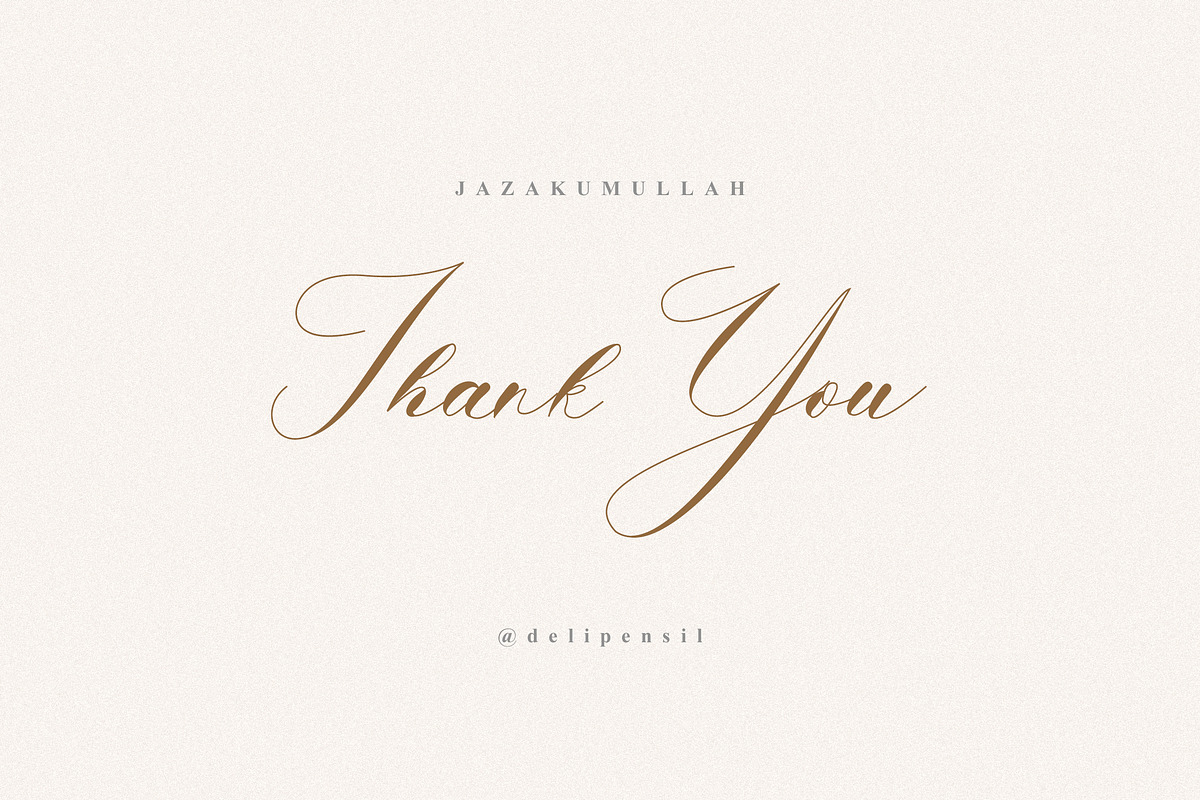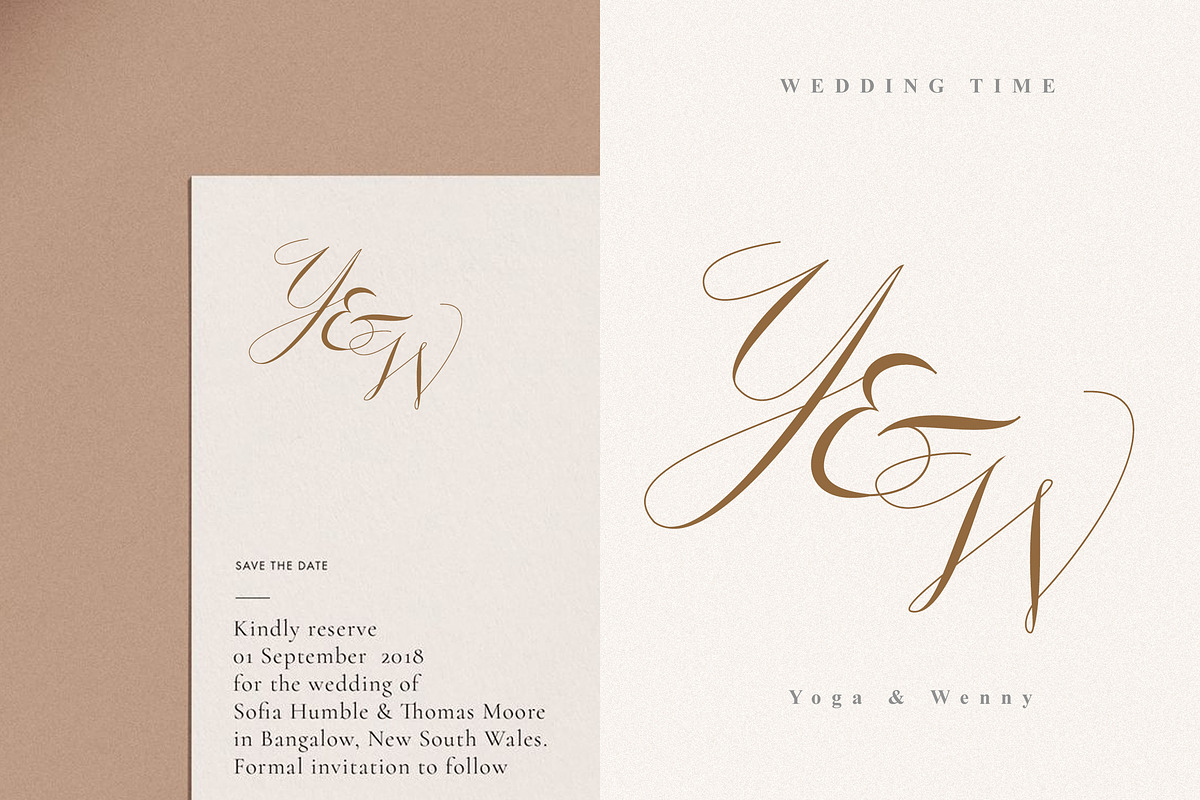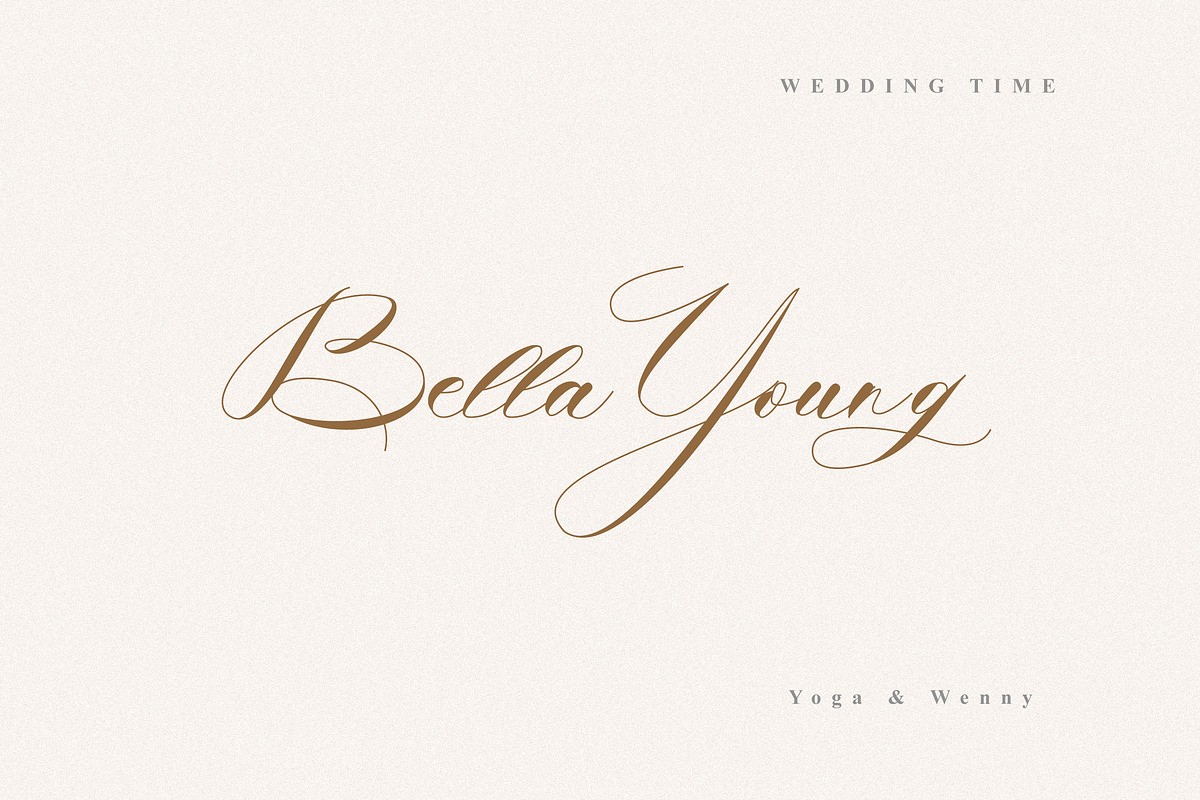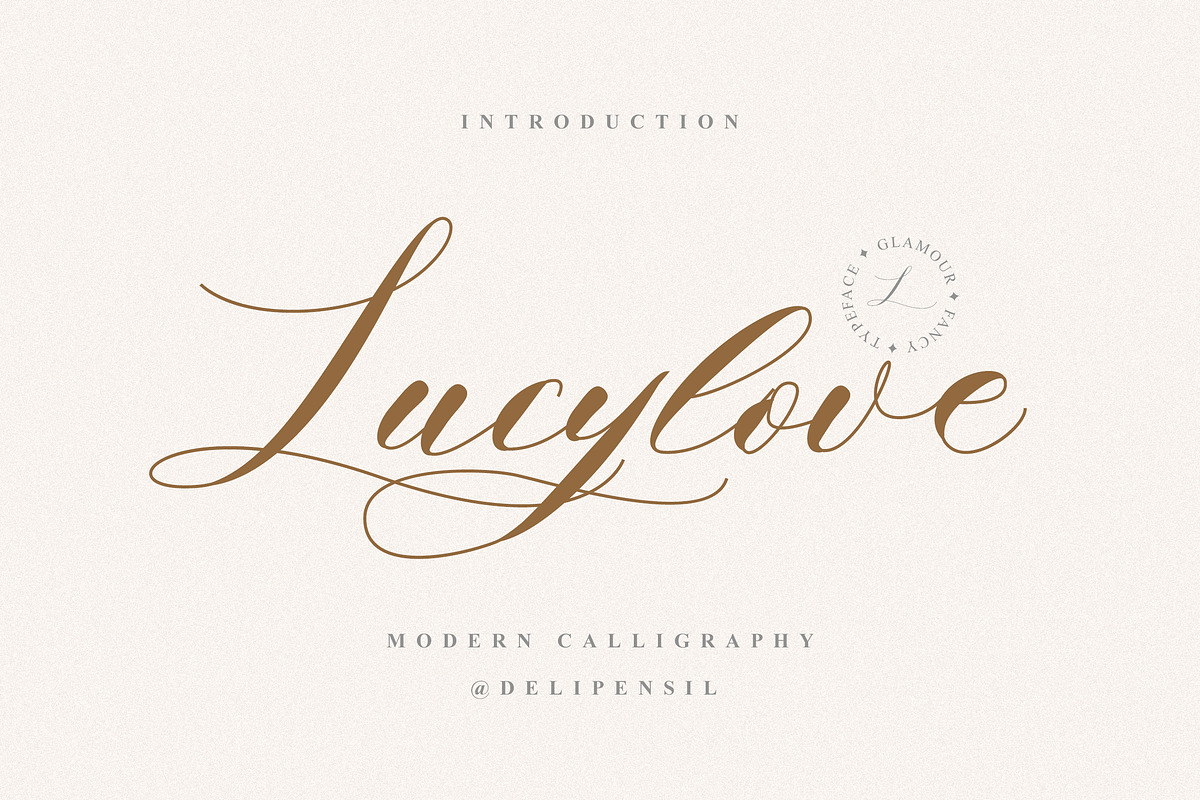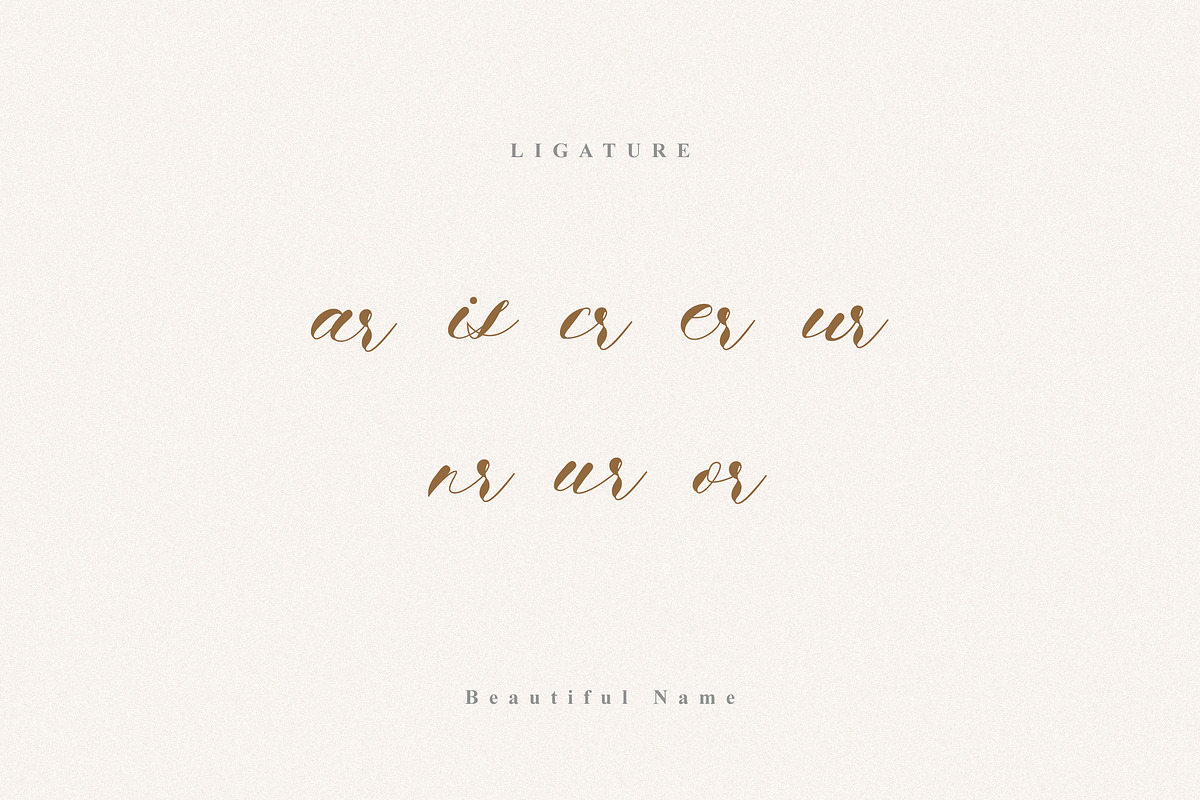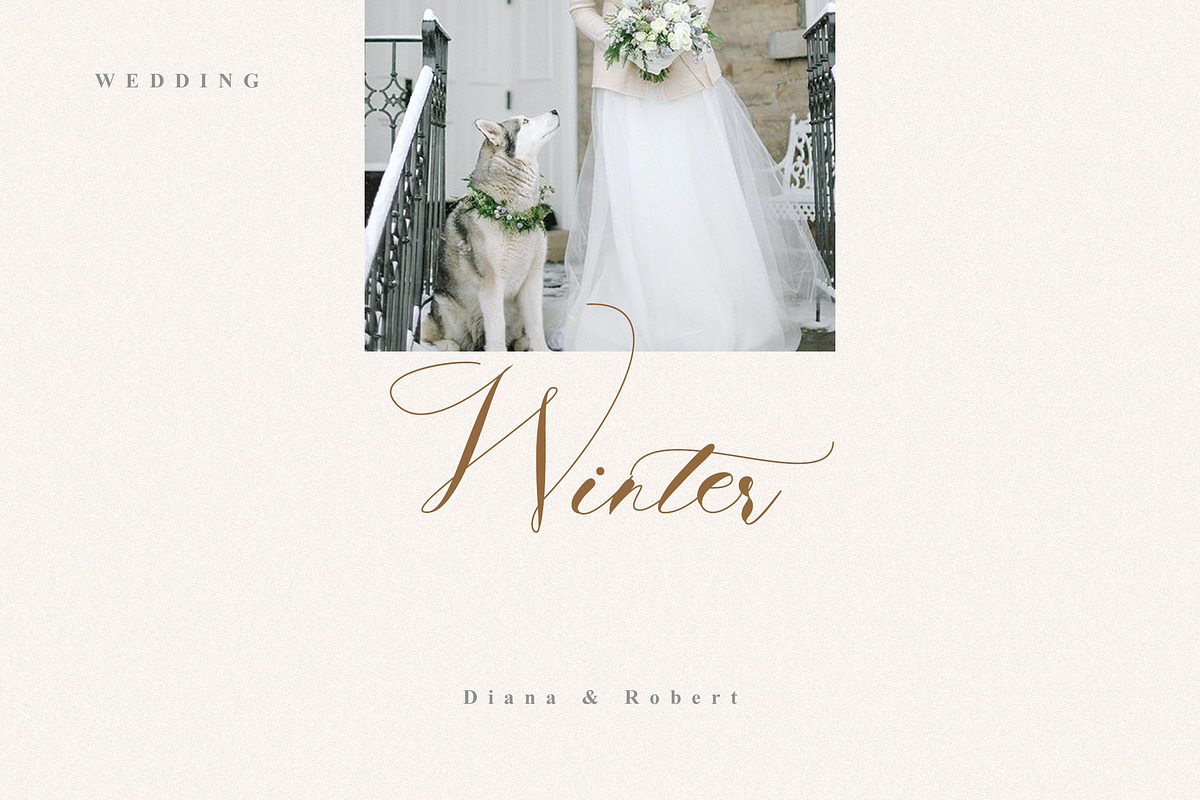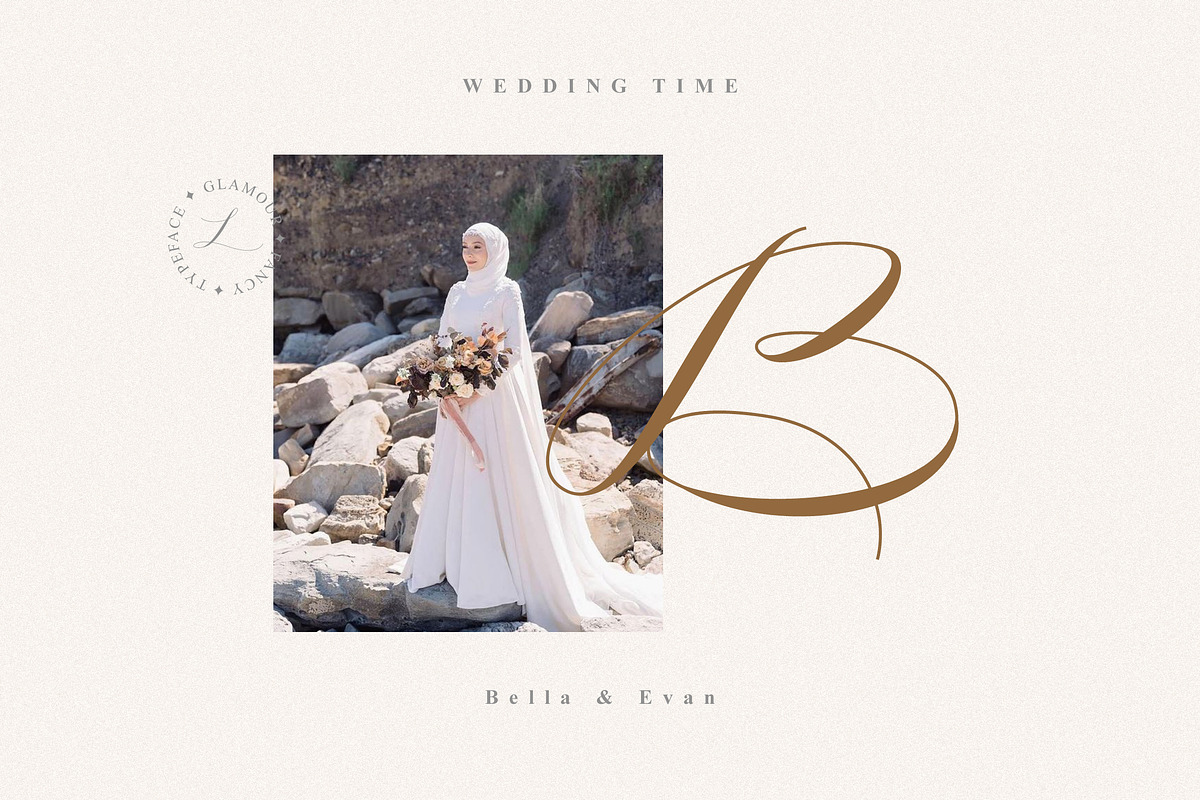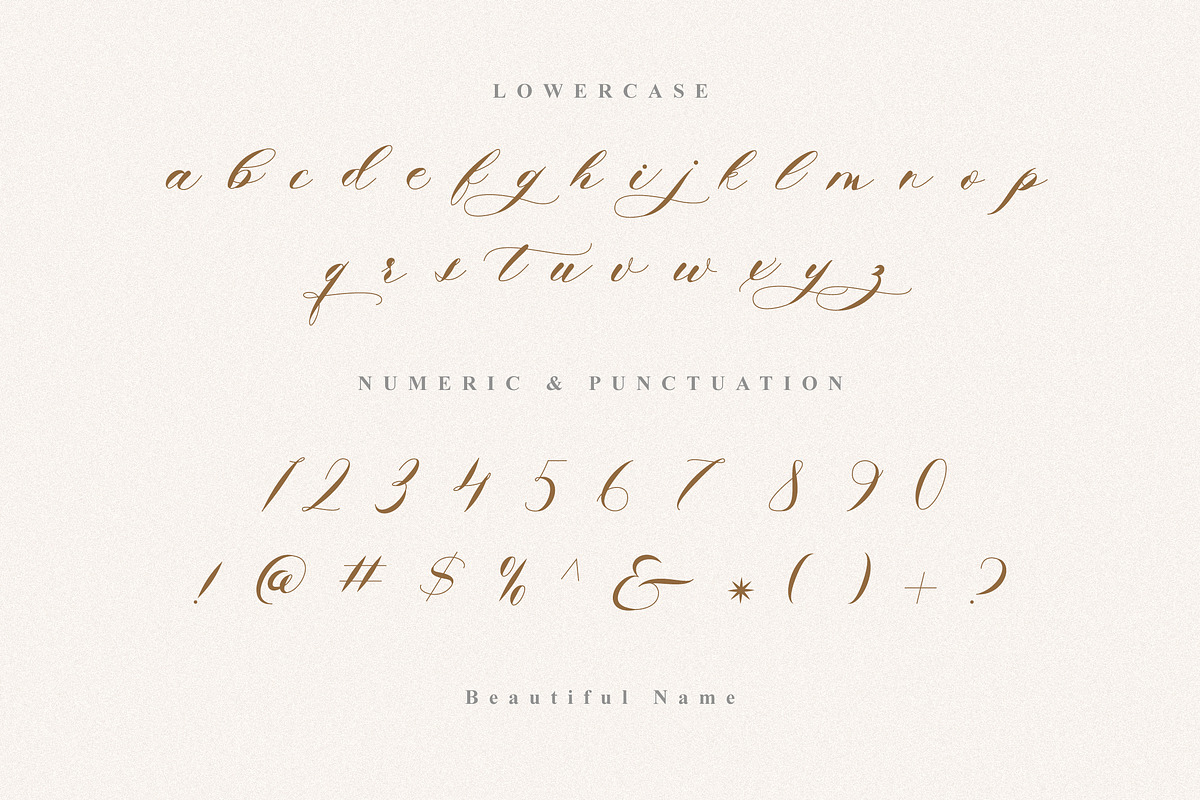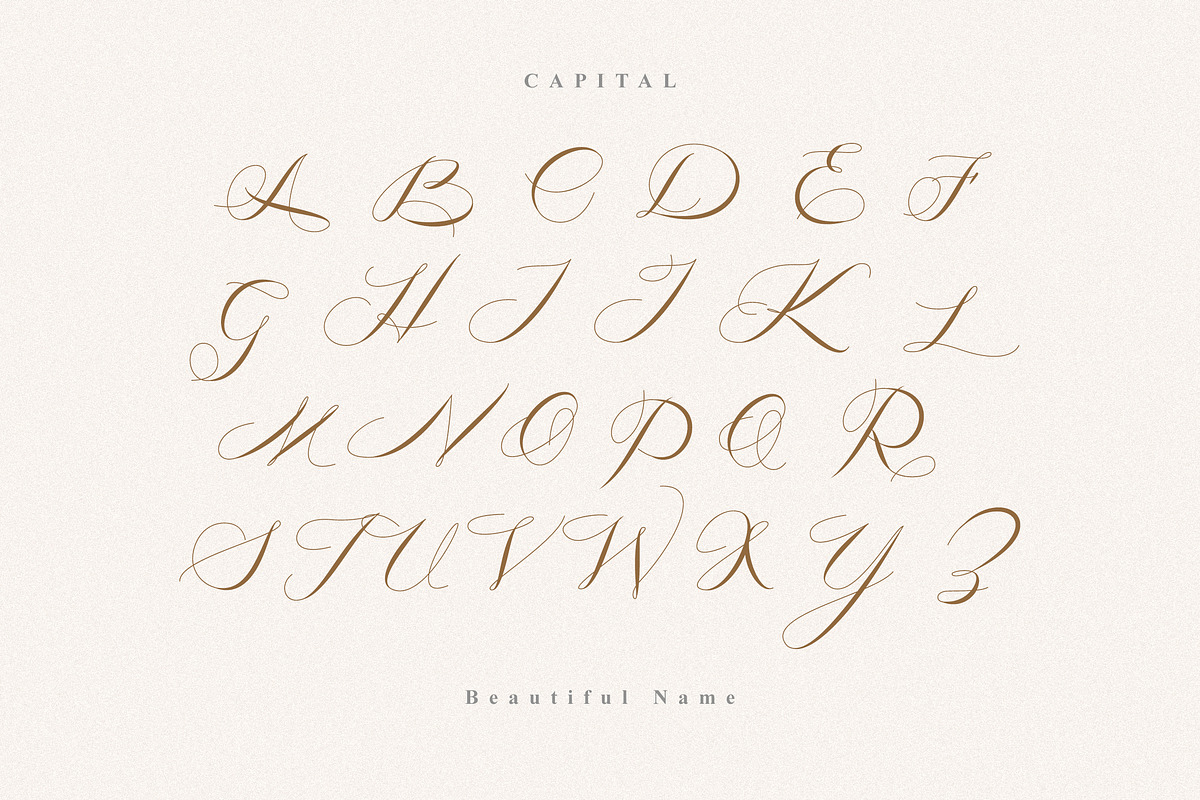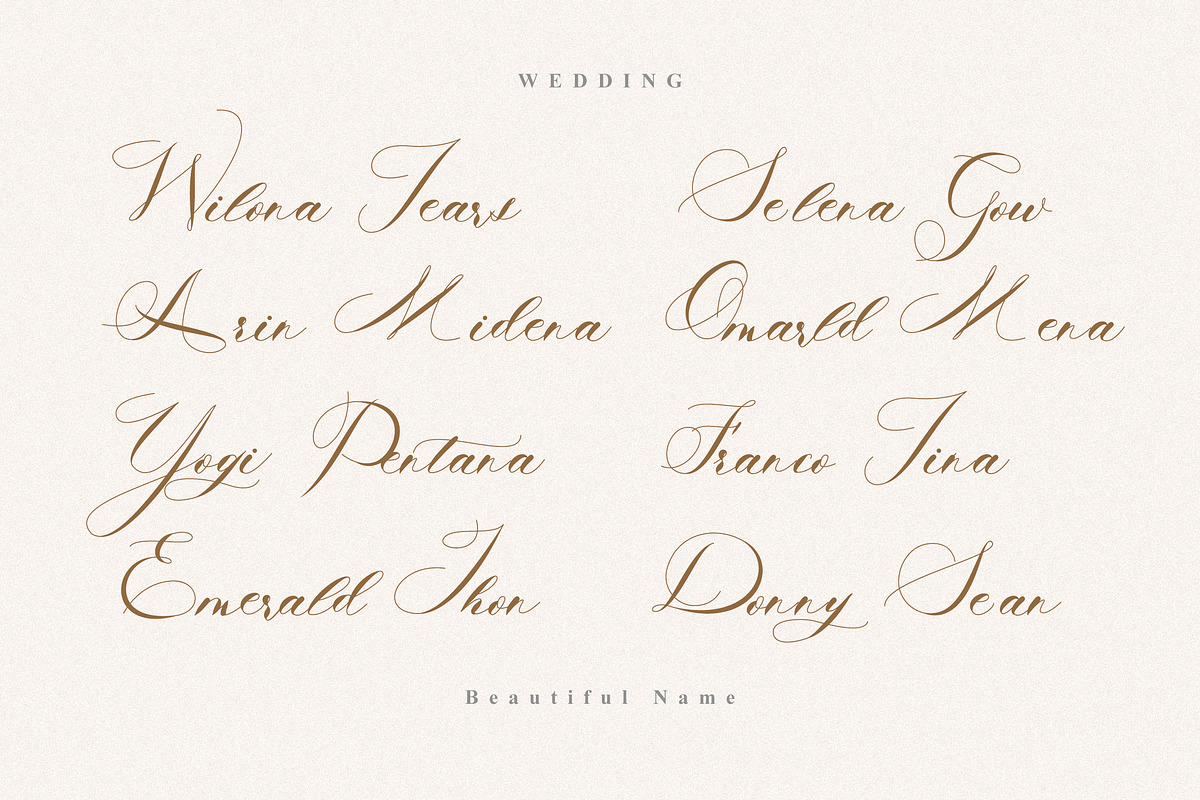
Lucylove - Modern Calligraphy
Bismillah, Introduction Lucylove - Modern Calligraphy Typeface 👑✨
Elegant Beauty Script font , it combine in one font, use this font for anything beauty place for your wedding name, logo, headline, cover book, magazine, website and many more
- Lucylove Kerning Style
- Lucylove 3 Style Typeface
- Lucylove Ligature Ready